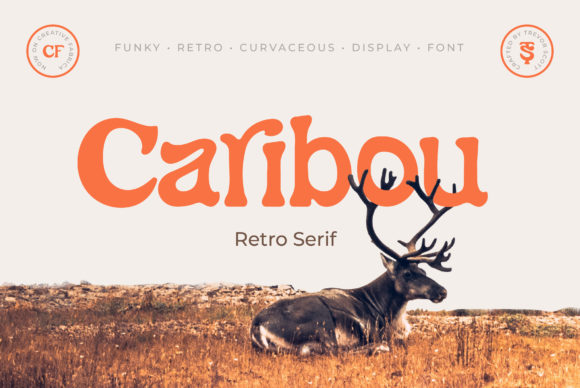
Introducing Caribou Font, the playful and captivating display typeface that will ignite your designs with undeniable charm. Crafted by the esteemed TrevSco, this font exudes a casual coolness and quirky allure that will elevate any creation.
Immerse yourself in the boundless versatility of Caribou Font. Its playful characters are perfect for capturing attention with titles that leap off the page, inviting readers into your captivating content. Whether you're crafting eye-catching social media posts, designing unforgettable posters, or adding a touch of whimsy to your website, Caribou Font has the power to transform your words into visual masterpieces.
But Caribou Font is more than just a pretty face. Its unique and charming personality shines through in every letter, adding a touch of playfulness and intrigue to even the most mundane text. From captivating headlines to engaging body copy, Caribou Font will infuse your designs with a captivating energy that will leave a lasting impression.
Unleash your creativity with Caribou Font, the ultimate choice for designers and content creators alike. Its adaptability knows no bounds, seamlessly complementing a wide range of design aesthetics. Whether you're aiming for a retro-inspired look, a modern and minimalist style, or anything in between, Caribou Font will effortlessly blend in, enhancing your designs with its timeless appeal.